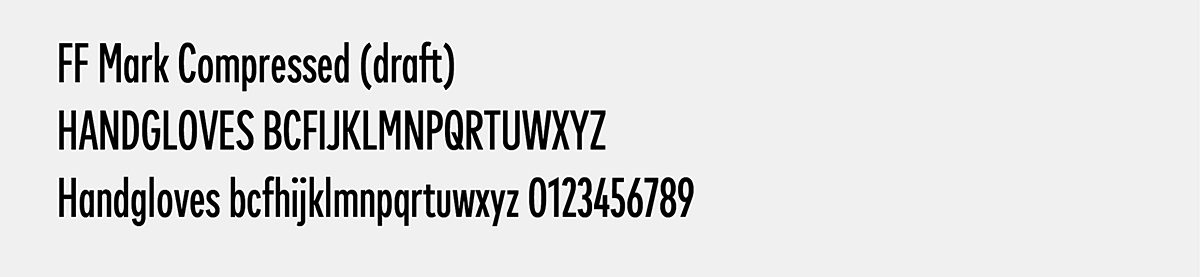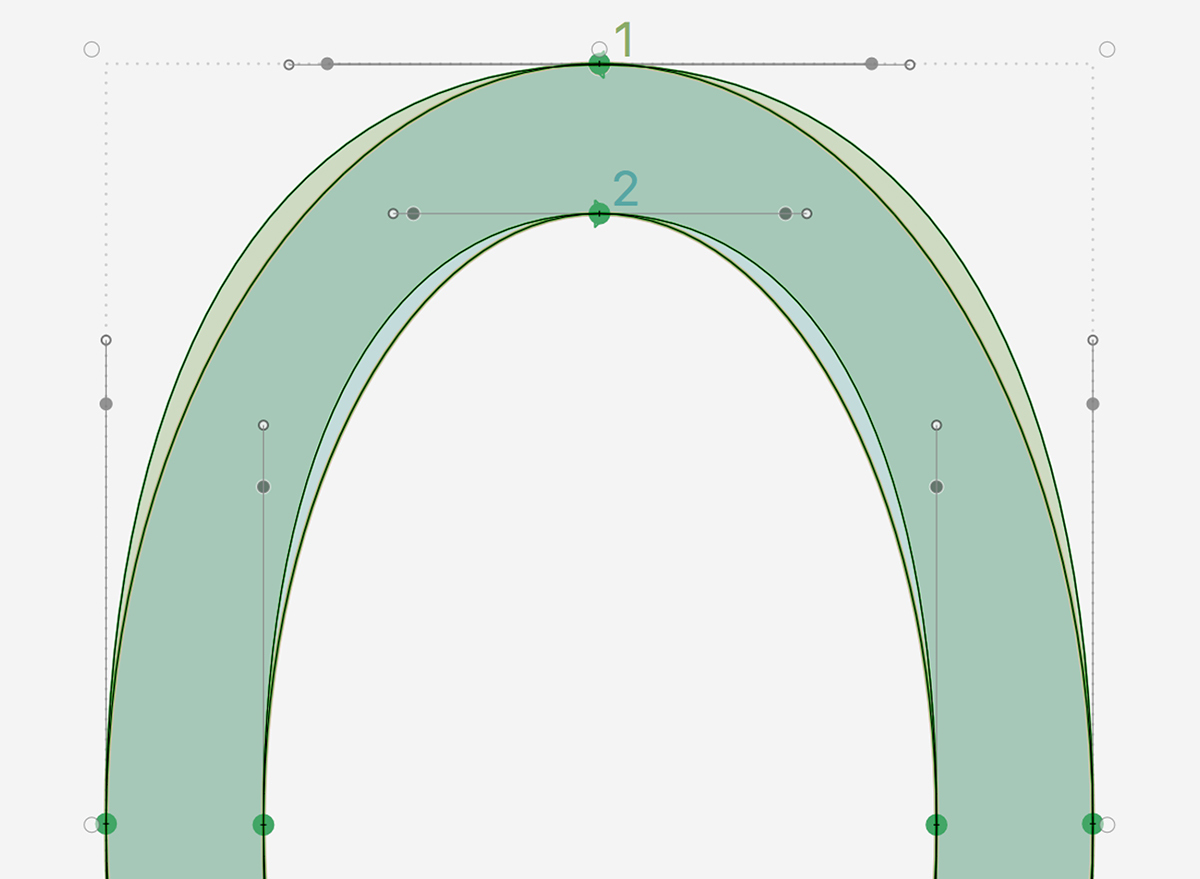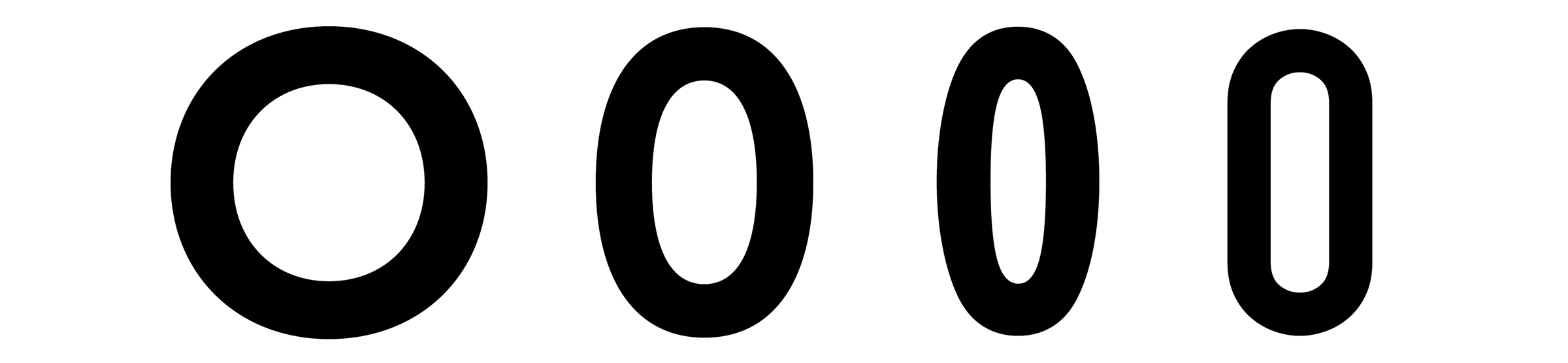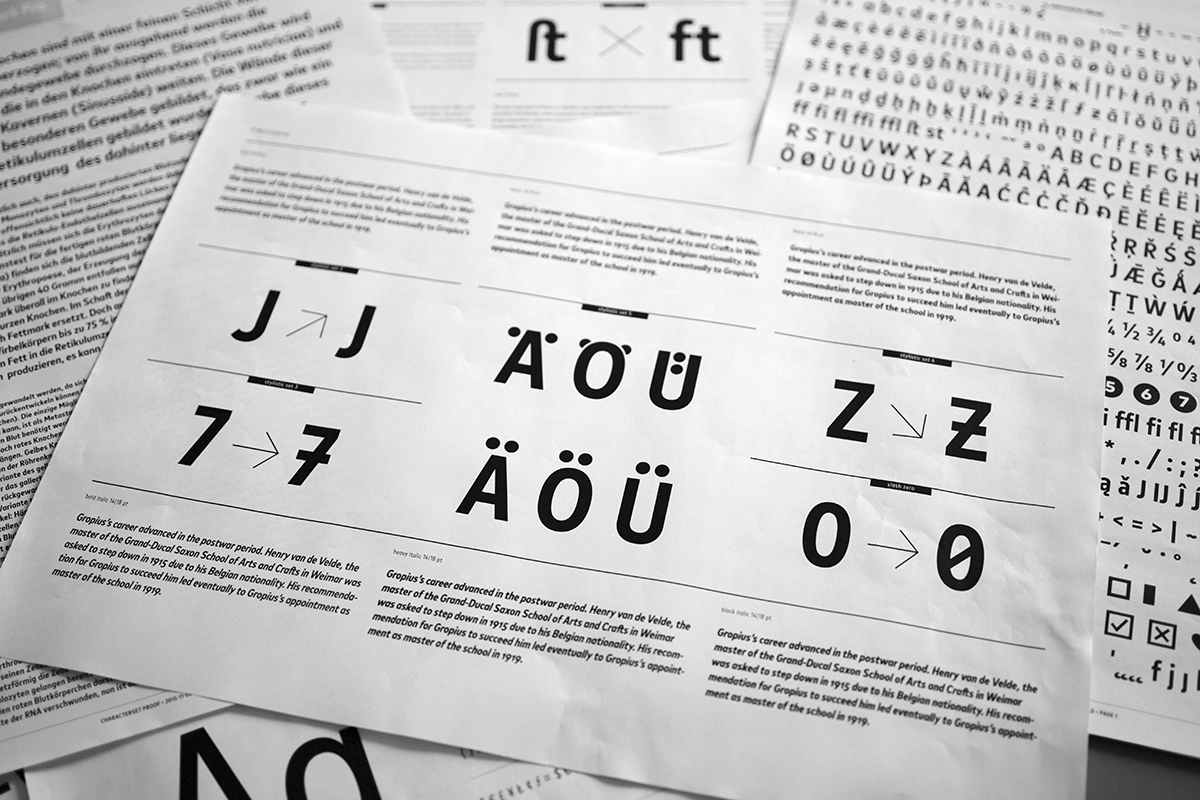
FF Mark Condensed
Variance meets consistency
The FF Mark series was a collaboration of Hannes von Döhren, Christoph Koeberlin and the FontFont Type Department with creative input of Erik Spiekermann. This condensed addition gives enough room to transport a lot of information. Still following the rules of its geometric companion the condensed weights fill an important gap in the FF Mark type system.
FF Mark Condensed – “Variance meets consistency“
A peek behind the curtains
A conversation with Hannes von Döhren, Andreas Frohloff, Ivo Gabrowitsch, Christoph Koeberlin, Jens Kutílek, Erik Spiekermann and Bernd Volmer grants us a peek behind the curtains of their collaboration while they discuss the creation of the new FontFont release FF Mark® Condensed. We talk about the unreleased "narrow” version to explain the new "condensed”, about ‘ch’-ligatures and the missing "spectacle-g” as well as about the importance of democratic design decisions and basket arches. What’s more, we asked: How narrow should the ‘s’ be, how do you avoid an “egg”, and when does it begin to feel like “Mark”?
A year and a half ago Hannes von Döhren visited the typographic workshop p98a to consult Erik Spiekermann about some historic examples of bold condensed geometric sans serifs. I was part of the conversation back then and chose to meet at this place again – right in time for the release of FF Mark Condensed.
Erbar® FF Grotesk bold condensed in 84 pt
In order to attune ourselves to the topic, a case of Erbar® Grotesk bold condensed in 84 pt is on display. A typeface on which the bold condensed lettering on Berlin’s street signs is based on as well: One quite close to Erbar, while the other was redesigned some years ago …
FF Mark has three different widths with 20 styles each plus one ultra fat style.
Erik Spiekermann | … with an ‘a’ that looks like Frutiger®.
Andreas Frohloff | Exactly! I drew that face, as well as the condensed alternative.
ES | That was you? I always wondered. That’s why it turned out so well – before that it looked rather quirky. I asked myself just recently, since there are two versions: The old Erbar one with a belly on the ‘a’ as well as the new one with a straight stroke ending – a beautiful typeface. It looks like a mix of Frutiger and Erbar: The good characteristics of Frutiger with those of Erbar. Obviously, a layman could not have produced it.
Hannes von Döhren | What about the typeface, is it available?
AF | It’s only available at the firm Pötter for whom I designed the typeface.
HvD | So you can’t acquire it anywhere?
ES | That means, it must be available digitally. I was sure that these morons at the authorities could not possibly have done this …
AF | Unfortunately, they wouldn’t let me add a foot to the ‘t’. Initially I did that …
ES | Would be much better actually!
AF | … but then the construction worker of the civil engineering unit, who was supposed to install the sign, said: “That ain’t no real ‘t’ – nah, no way I’m installing that” and Mr. Pötter, who sells the signs, decided: “We’re going to have to change it.”
ES | That’s Germany. The civil engineers make such decisions.
Berlin street sign: left the original typeface (based on Erbar Condensed) that was the inspiration for FF Cst Berlin™ West; right the new typeface by Andreas Frohloff.
How come those infamous ligatures – such as ‘tz’ with the descender-‘z’ in “Platz” – are sometimes included and sometimes not? And why do we see more street names set in DIN Condensed lately?